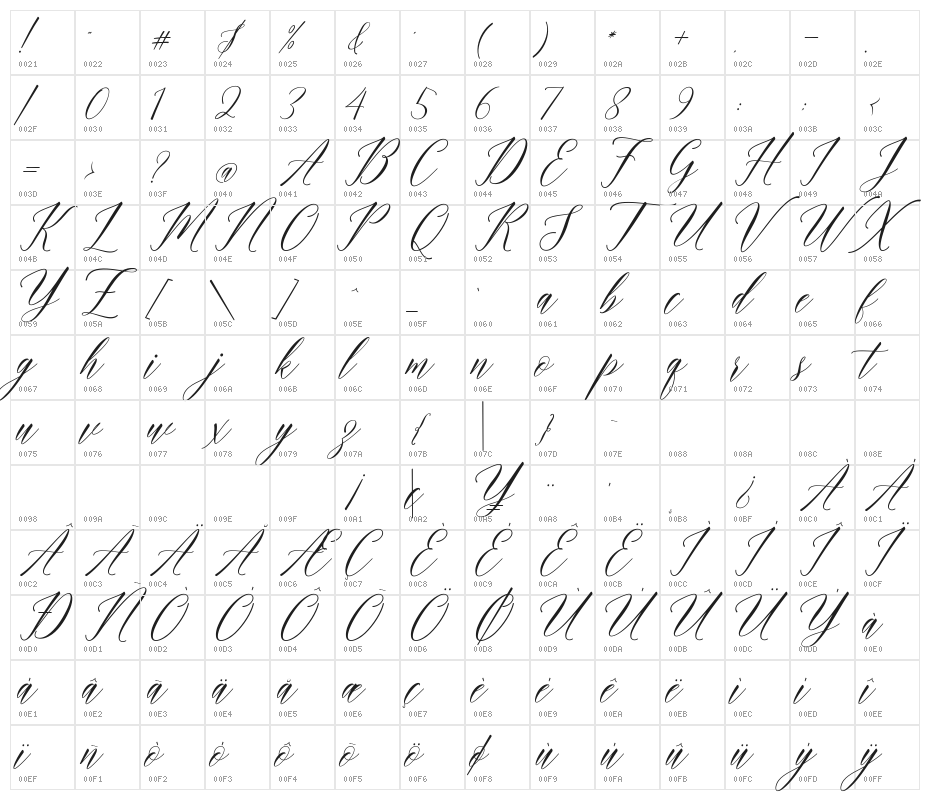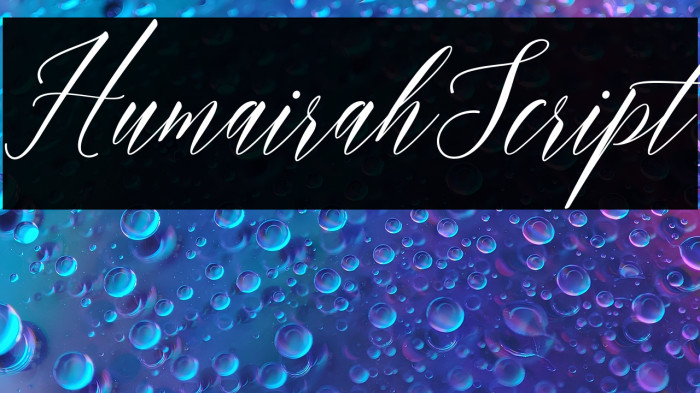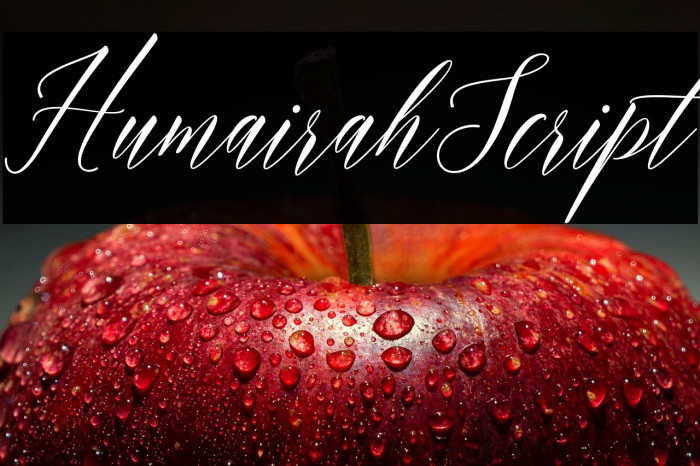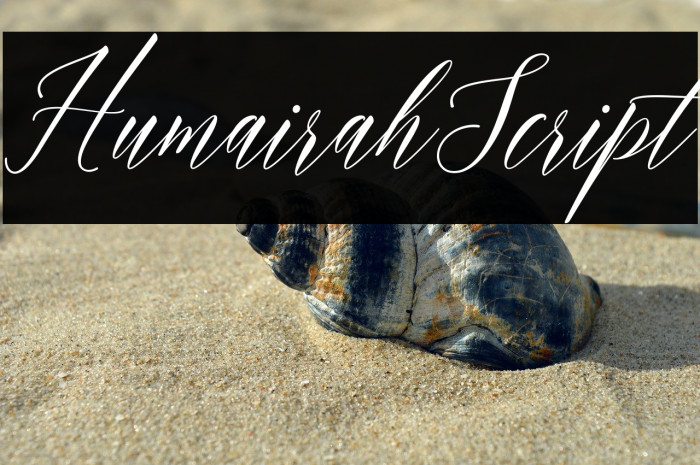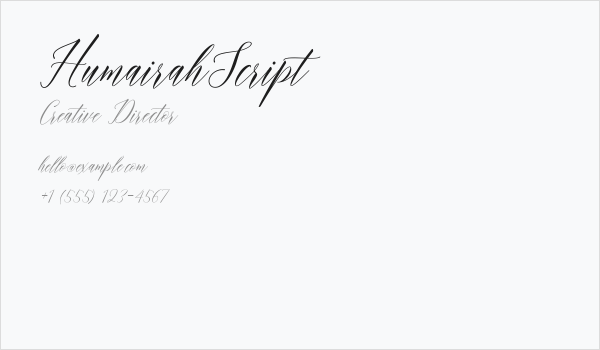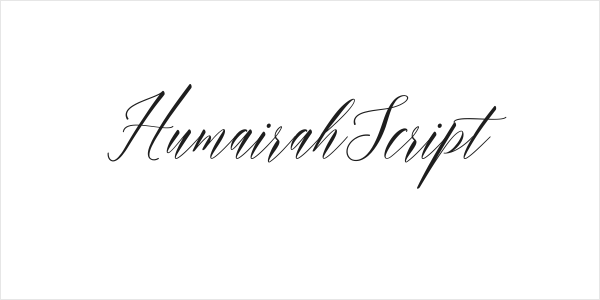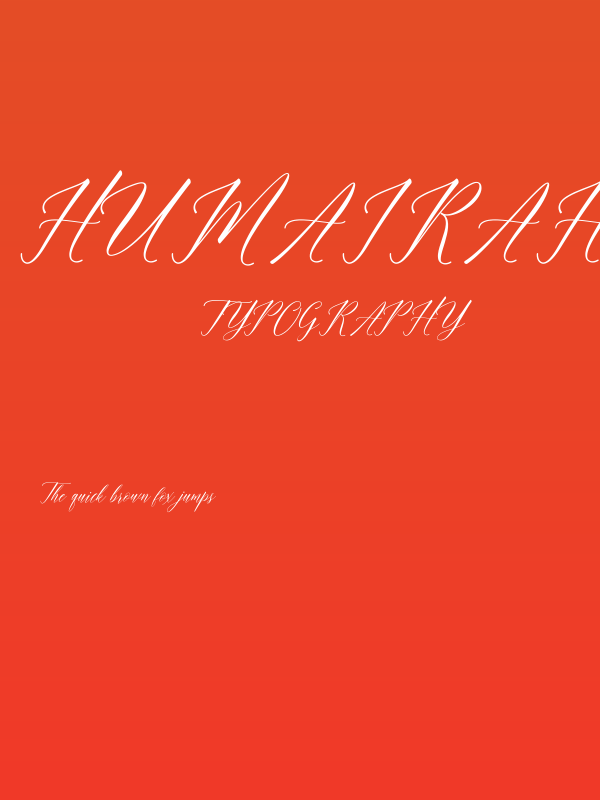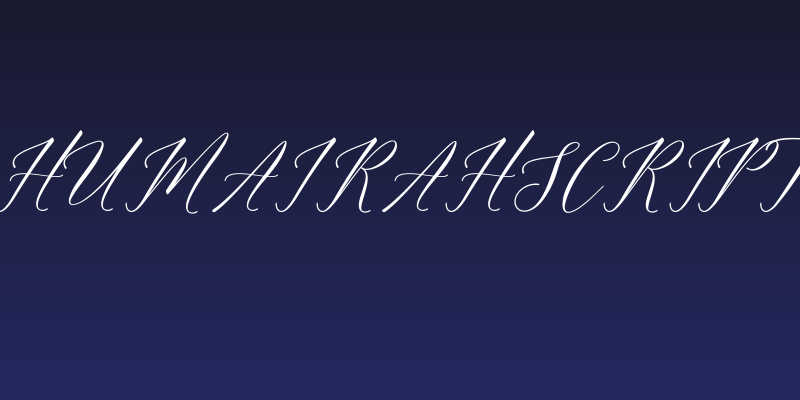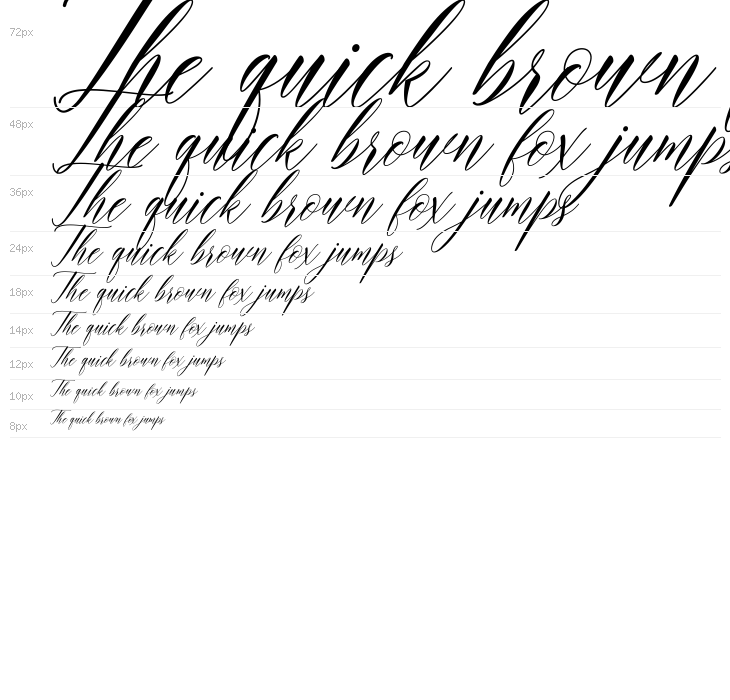
HumairahScript Font
| Gesamtstil | Elegant |
| Anwendungsfall | Headlines, Invitations, Branding |
| Vorgeschlagene Projekte | Ideal for wedding invitations, elegant branding, personal stationery, and luxury product packaging. |